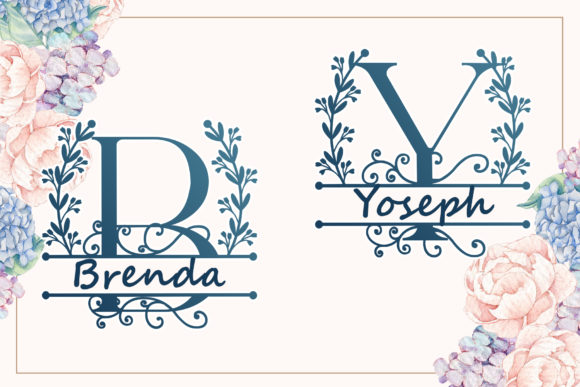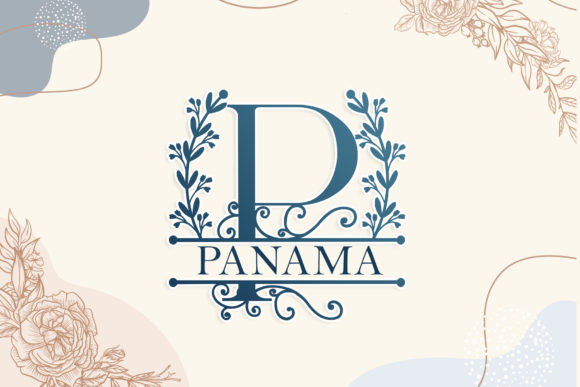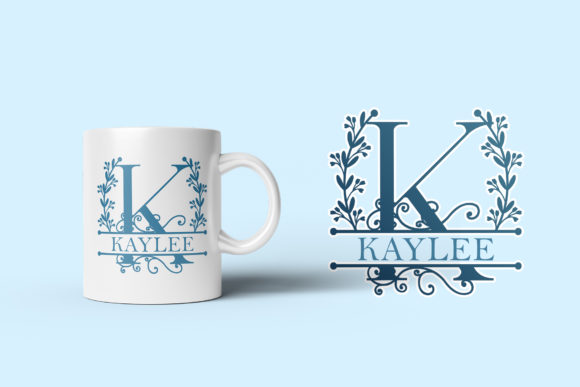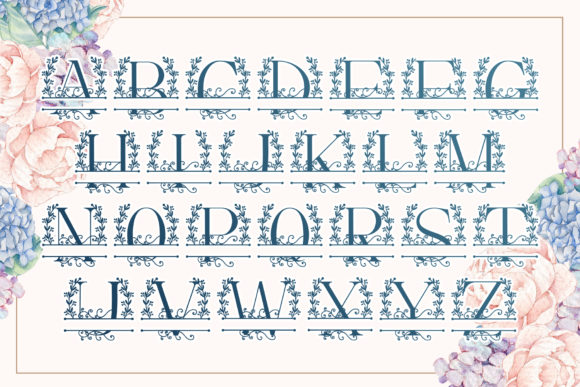
Introducing Handdrawn Vine Font: Elevate Your Crafting Projects with a Touch of Elegance
Are you a designer or crafter looking for a unique and personalized touch to add to your projects? Look no further than the Handdrawn Vine Font, a stunning monogram decorative font with a beautiful floral theme. This gorgeous font is perfect for anyone who wants to add a touch of elegance and sophistication to their crafting projects.
What is Handdrawn Vine Font?
Handdrawn Vine is a carefully crafted font that features intricate floral designs and a delicate, hand-drawn aesthetic. This monogram font is specifically designed to add a touch of whimsy and charm to any crafting project, from DIY cards and invitations to personalized gifts and decorations.
Key Features of Handdrawn Vine Font
- Monogram Decorative Font: Handdrawn Vine is a decorative font that features beautiful monogram designs, perfect for creating personalized and eye-catching projects.
- Floral Theme: The font boasts a stunning floral theme, with intricate designs and delicate details that add a touch of elegance to any project.
- Hand-Drawn Aesthetic: The font features a hand-drawn aesthetic, giving it a unique and personalized feel that’s perfect for crafters and designers.
- Easy to Use: Handdrawn Vine is easy to use and can be applied to a variety of crafting projects, from digital designs to handmade crafts.
Uses for Handdrawn Vine Font
Handdrawn Vine is a versatile font that can be used for a wide range of crafting projects, including:
- DIY Cards and Invitations: Add a touch of elegance to your cards and invitations with the Handdrawn Vine Font.
- Personalized Gifts: Use the font to create personalized gifts, such as monogrammed towels, mugs, and more.
- Decorations: Add a touch of whimsy to your decorations, such as garlands, banners, and more.
- Digital Designs: Use the font in your digital designs, such as social media graphics, blog posts, and more.
Why Choose Handdrawn Vine Font?
There are many reasons why Handdrawn Vine Font is the perfect choice for your crafting projects. Here are just a few:
- Unique and Personalized: The font features a unique and personalized aesthetic that’s sure to set your projects apart.
- Elegant and Sophisticated: The font boasts an elegant and sophisticated design that’s perfect for adding a touch of class to your projects.
- Easy to Use: The font is easy to use and can be applied to a variety of crafting projects.
- High-Quality Design: The font is designed with high-quality graphics, ensuring that it looks great in any project.
Tips and Tricks for Using Handdrawn Vine Font